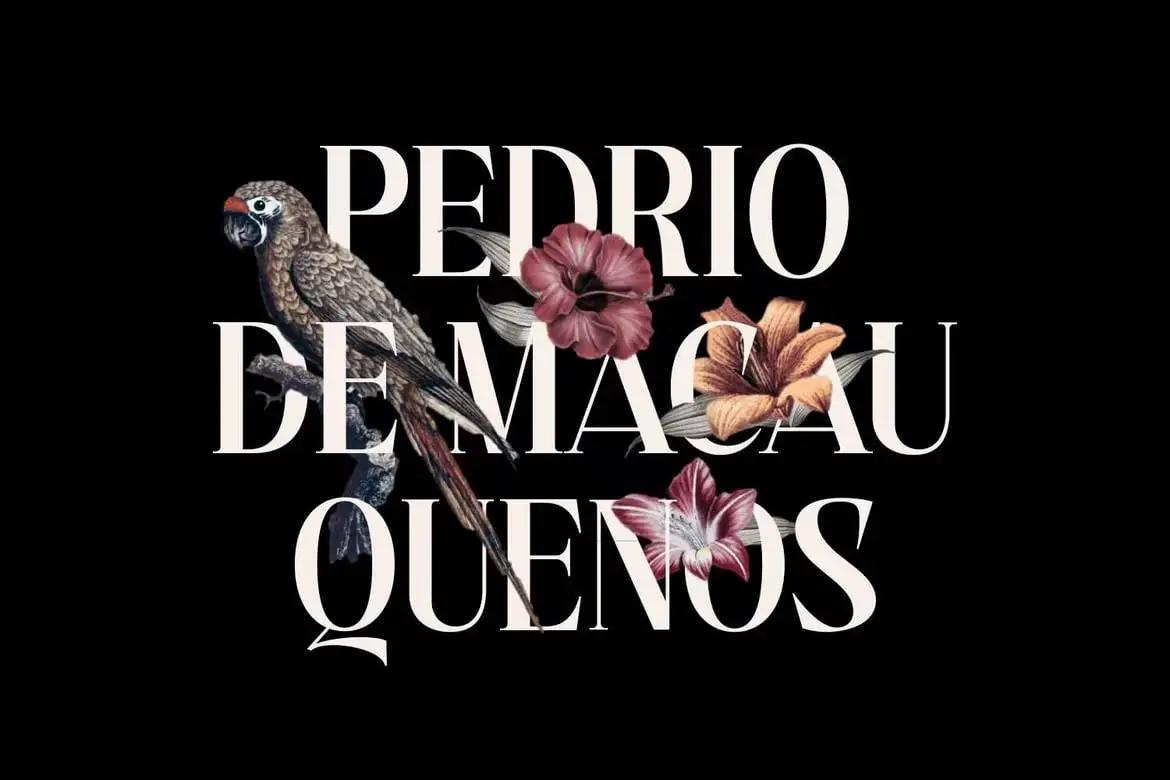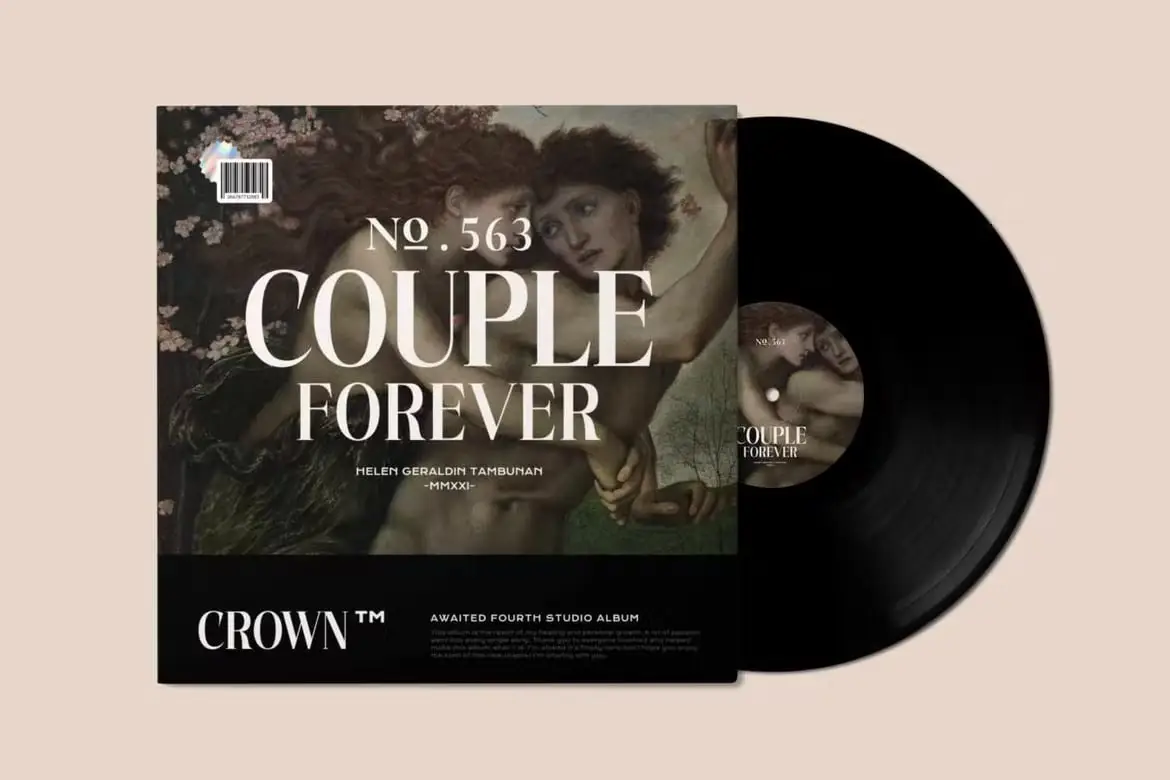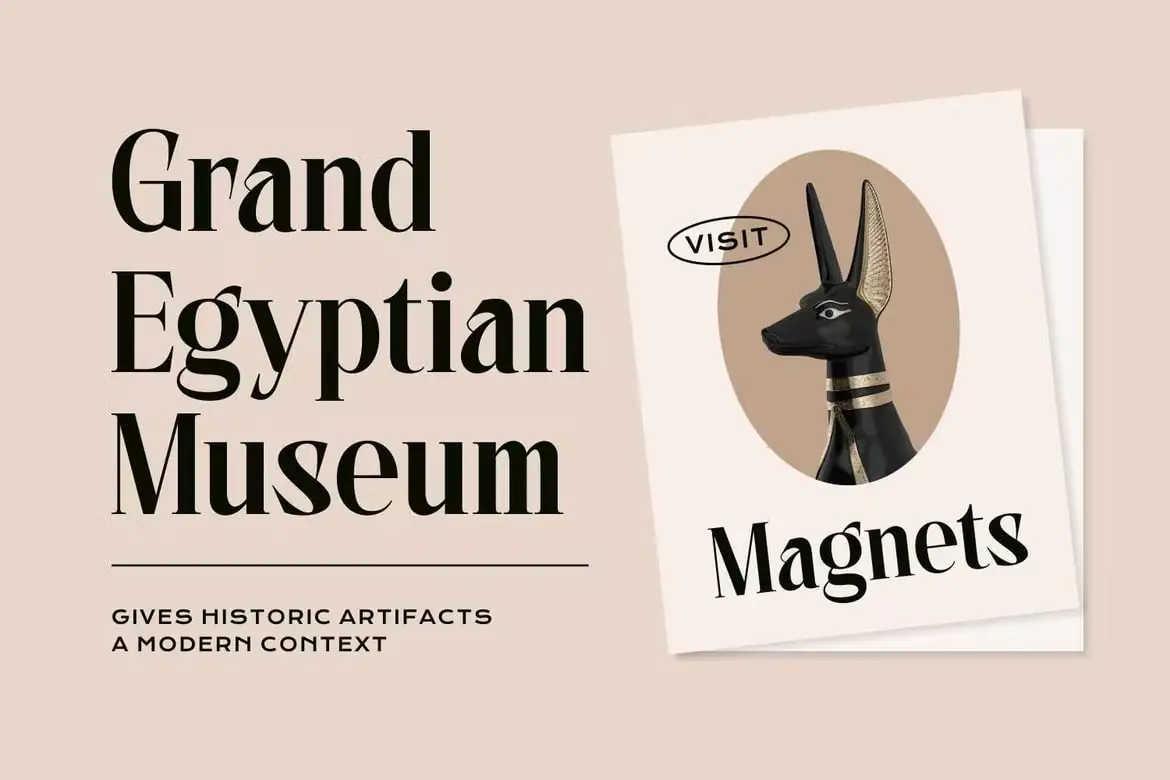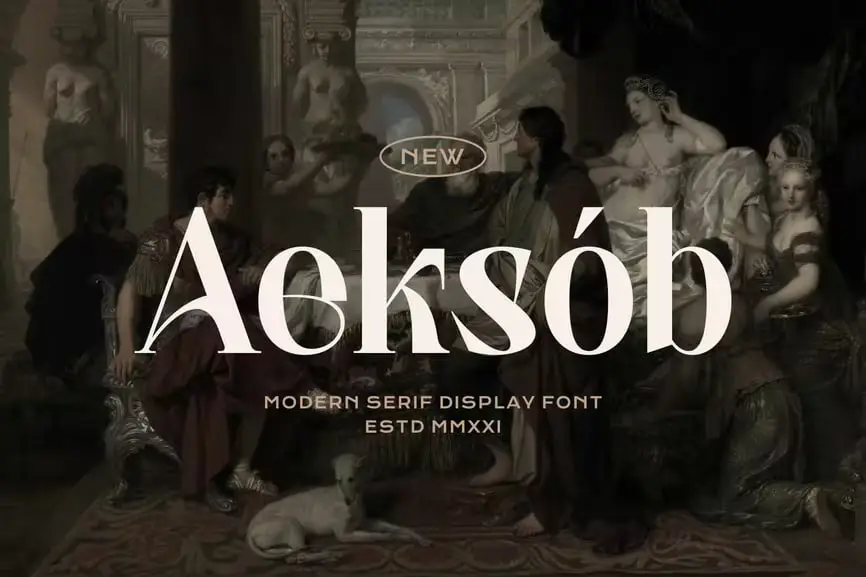
Aeksob-Modern Serif Display Font
The Aeksob-Modern Serif Display Font is a stylish typeface designed to elevate your creative projects. With its elegant curves and distinct serifs, this font is perfect for making a statement in both digital and print media.
• Unique serif design for a contemporary look
• Uppercase and lowercase letters included
This font is ideal for branding, logos, headlines, and any project that requires a touch of sophistication and modernity.